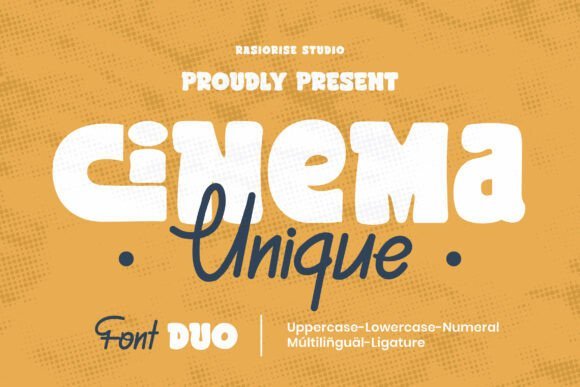
Bring Your Designs to Life with the Cinema Unique Font
Have you ever stared at a blank page, waiting for inspiration to strike? The blank canvas can be intimidating, but sometimes all it takes is the right font to spark creativity. That’s where the Cinema Unique Font comes in – a dynamic duo of handwritten and bold sans-serif typography that’s sure to elevate your designs.
This versatile font is perfect for designers looking to add a touch of playfulness and sophistication to their projects. With its clean lines and artistic flair, the Cinema Unique Font is ideal for creating beautiful typography that stands out. Whether you’re working on a logotype, book cover, or greeting card, this font is sure to help your project shine.
Cinema Unique Font Key Features
- Font Family: Cinema Unique Font is a sans-serif font family designed for cinematic and dramatic purposes.
- Font Size: Cinema Unique Font comes in 6 weights, ranging from Light to Black, providing flexibility for various design applications.
- Unique Characteristics: The font features a unique blend of geometric and organic elements, creating a dynamic and emotive visual experience.
- Resolution: Designed to work well at high resolutions, making it ideal for use in film titles, motion graphics, and other high-definition applications.
- Scalability: Cinema Unique Font is highly scalable, allowing it to be used effectively in a wide range of font sizes, from small captions to large headlines.
Cinema Unique Font Review
I recently had the chance to work with the Cinema Unique Font, and I must say it’s a unique addition to any design project ✨. The font is perfect for creating a nostalgic, retro vibe, and its high contrast design makes it perfect for use in posters, advertisements, and other promotional materials.
Here are some of the things that work well with this font:
- Its bold and striking design makes it perfect for grabbing attention ✨
- It’s highly customizable, making it easy to adjust the font to fit your design needs
- It’s a great choice for creating a vintage or retro look and feel
However, there are a few limitations to keep in mind ⚠️:
- The font may not be suitable for all types of projects, particularly those that require a more modern or minimalist design
- The high contrast design may be difficult to read for some users, particularly those with visual impairments
- The font may be too ornate for some designs, which could detract from the overall message
Overall, I’d say the Cinema Unique Font is a solid choice for designers looking to create a unique and eye-catching design. While it may not be perfect for every project, it’s definitely worth considering for those looking to add a touch of nostalgia and personality to their work.
The Cinema Unique font is ideal for creating eye-catching titles, headings, and captions for film and video projects.
Use it to add a touch of sophistication and elegance to your designs, and experiment with different font sizes and colors to create a unique look.
- Movie titles and credits
- Video game titles and menus
- Advertising and promotional materials
Alternatives to Cinema Unique Font
Fontin is a sans-serif font that is often used for headings and titles. It has a similar elegant and modern feel to Cinema Unique Font, but with a more geometric and structured design.
Use Fontin when you need a clean and sophisticated look for your headings, and when you want to create a sense of balance and harmony in your design.
Comparison to Cinema Unique Font: Fontin has a more geometric and structured design, whereas Cinema Unique Font has a more organic and hand-drawn feel.
Playfair Display is an elegant and luxurious serif font that is often used for headings and titles. It has a similar high-end feel to Cinema Unique Font, but with a more ornate and decorative design.
Use Playfair Display when you need to create a sense of sophistication and elegance in your design, and when you want to add a touch of luxury and refinement.